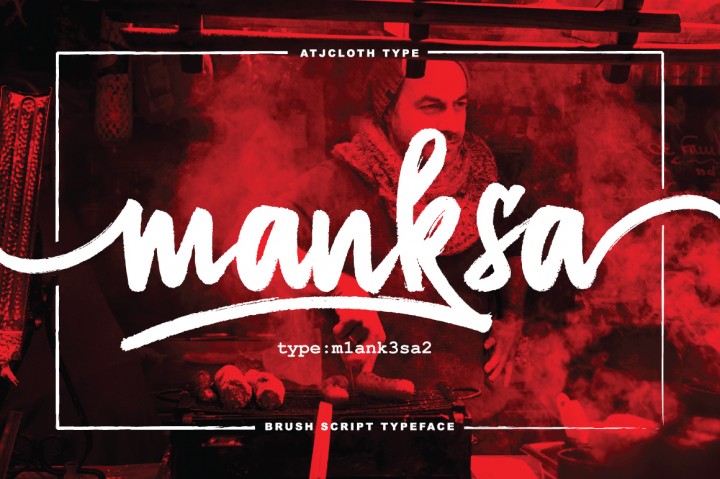
Manksa Typeface
Manksa Typeface is textured brush font, contemporary approach to design, handmade natural with an less regular baseline. Suitable for use in title design. Such as apparel, invitations, books tittle, stationery design, quotes, branding, logos, greeting card, t-shirt, packaging design, poster and more.